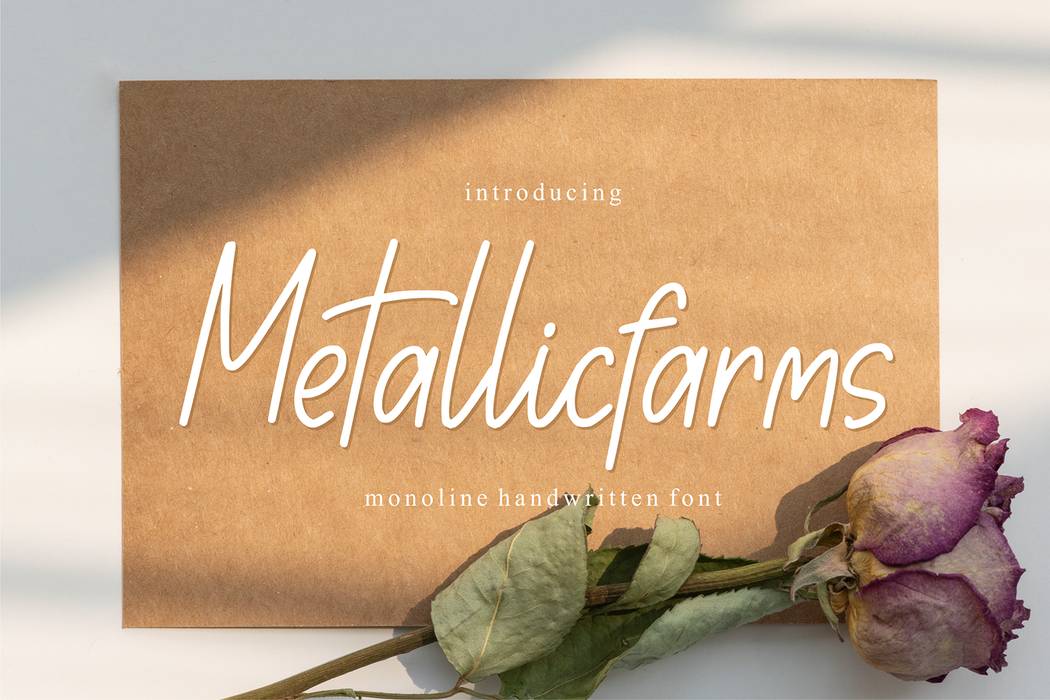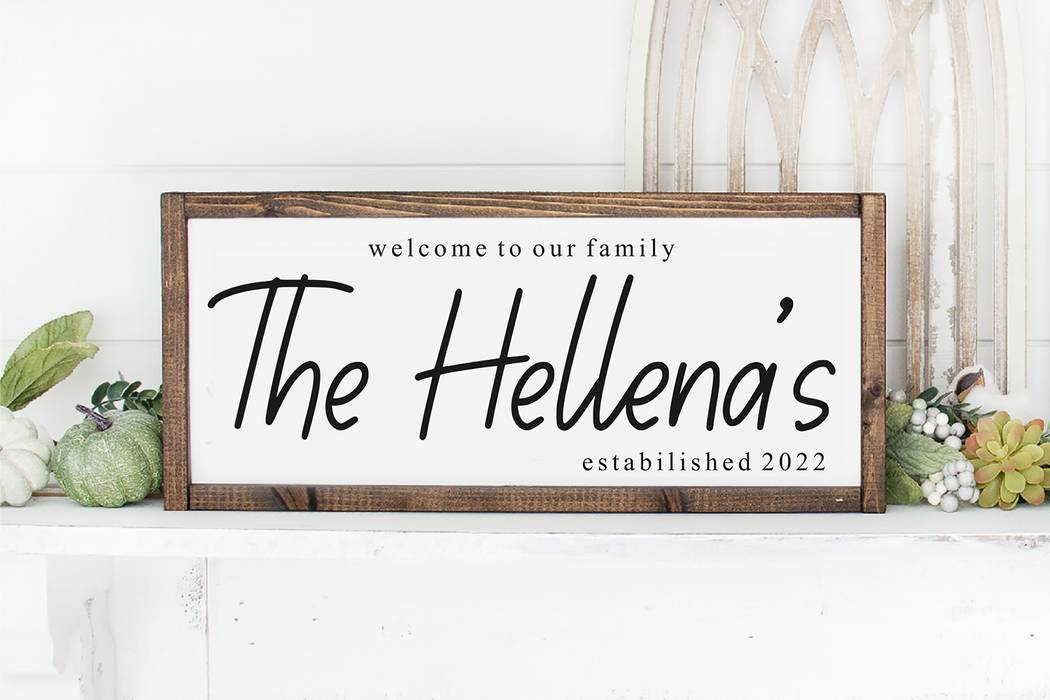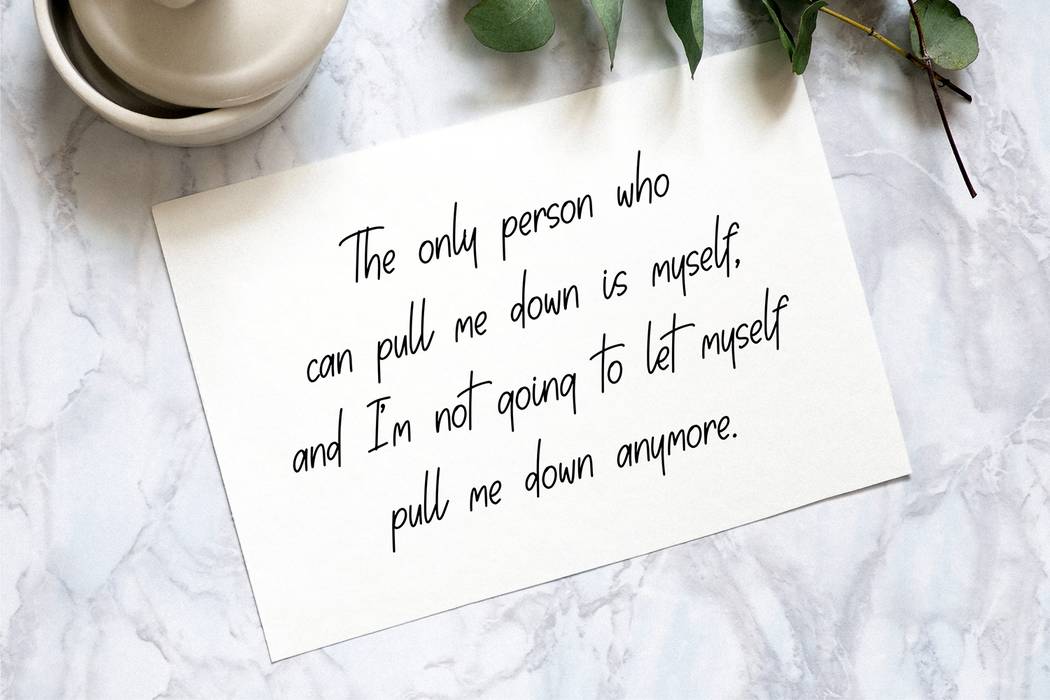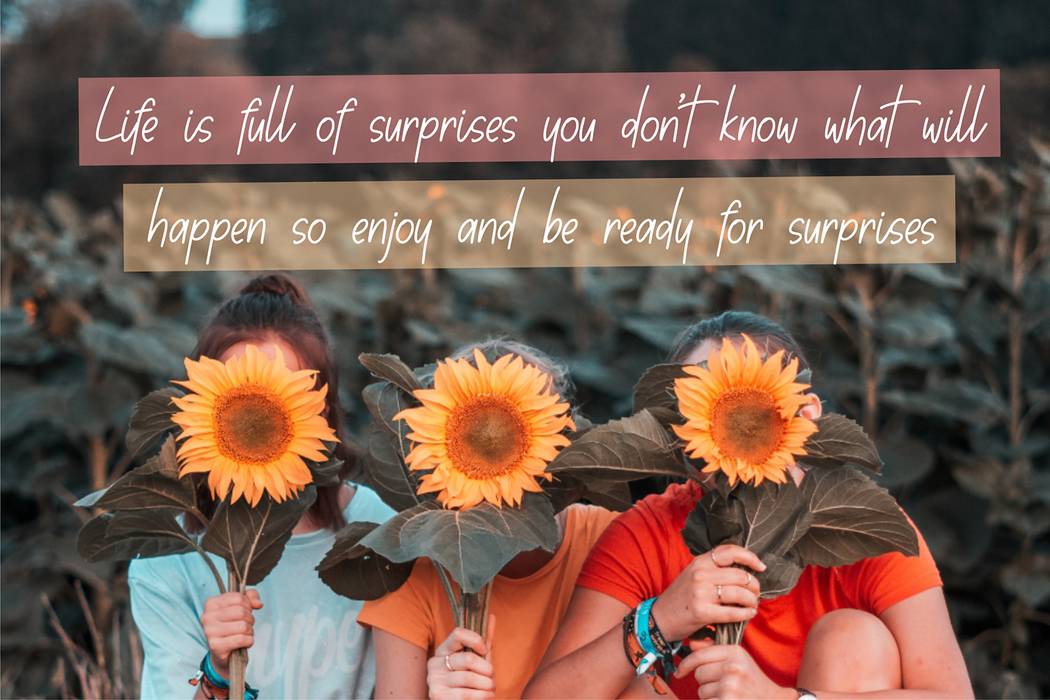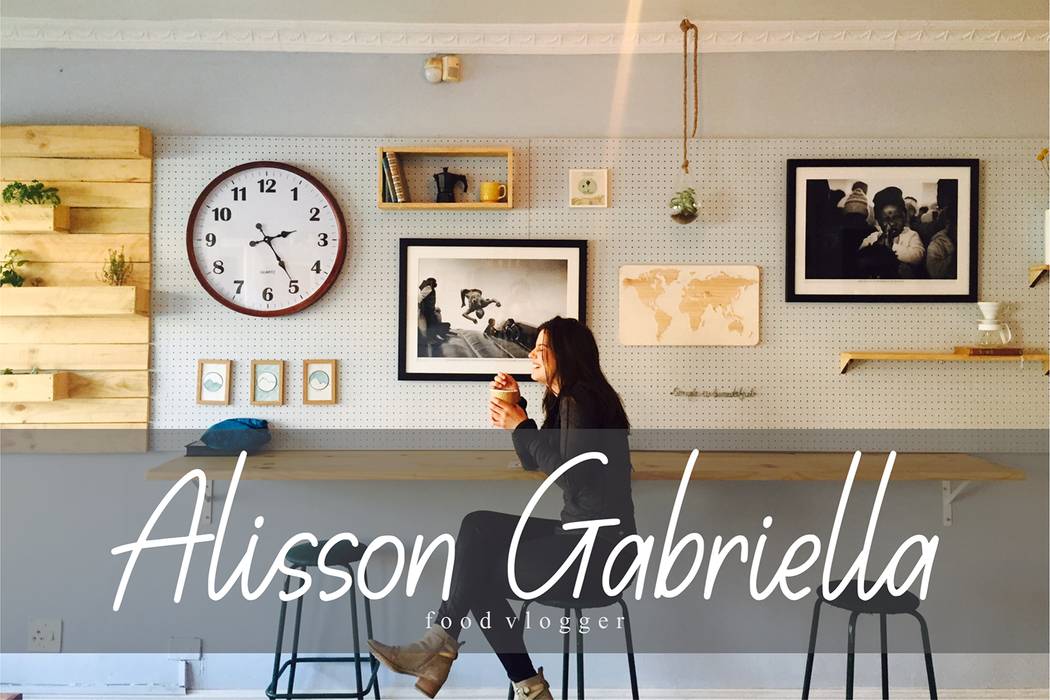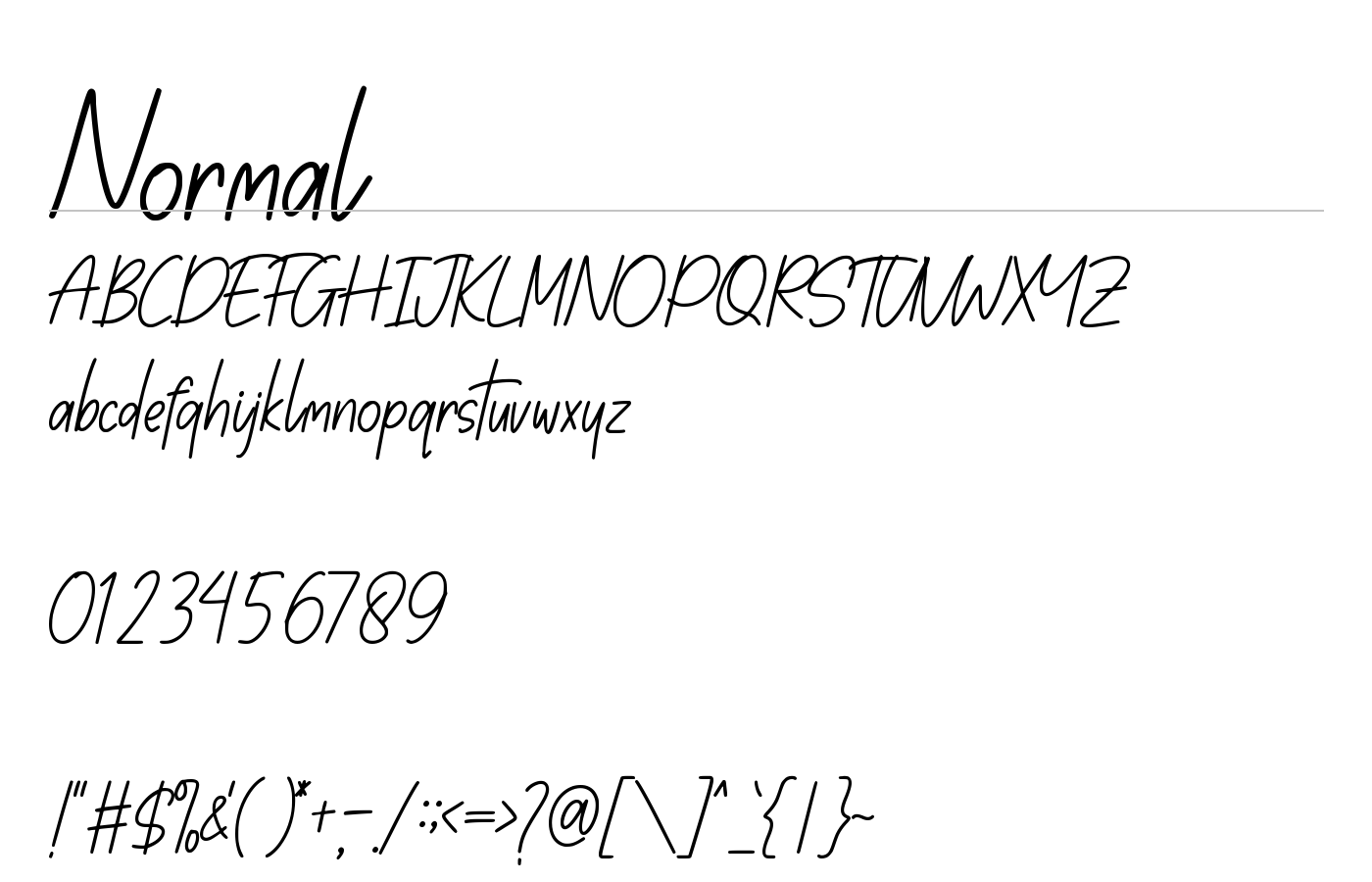
Metallicfarms is a casual, handwritten script font characterized by its slender, slightly slanted letterforms and playful, organic strokes that mimic natural handwriting. Its light weight and airy spacing create an informal, approachable feel, making it perfect for personal branding, creative projects, or any design that aims for a friendly, relaxed vibe. This font works well especially in invitations, social media graphics, or headlines where a touch of warmth and personality is desired.
Metallicfarms Font
About Metallicfarms Font